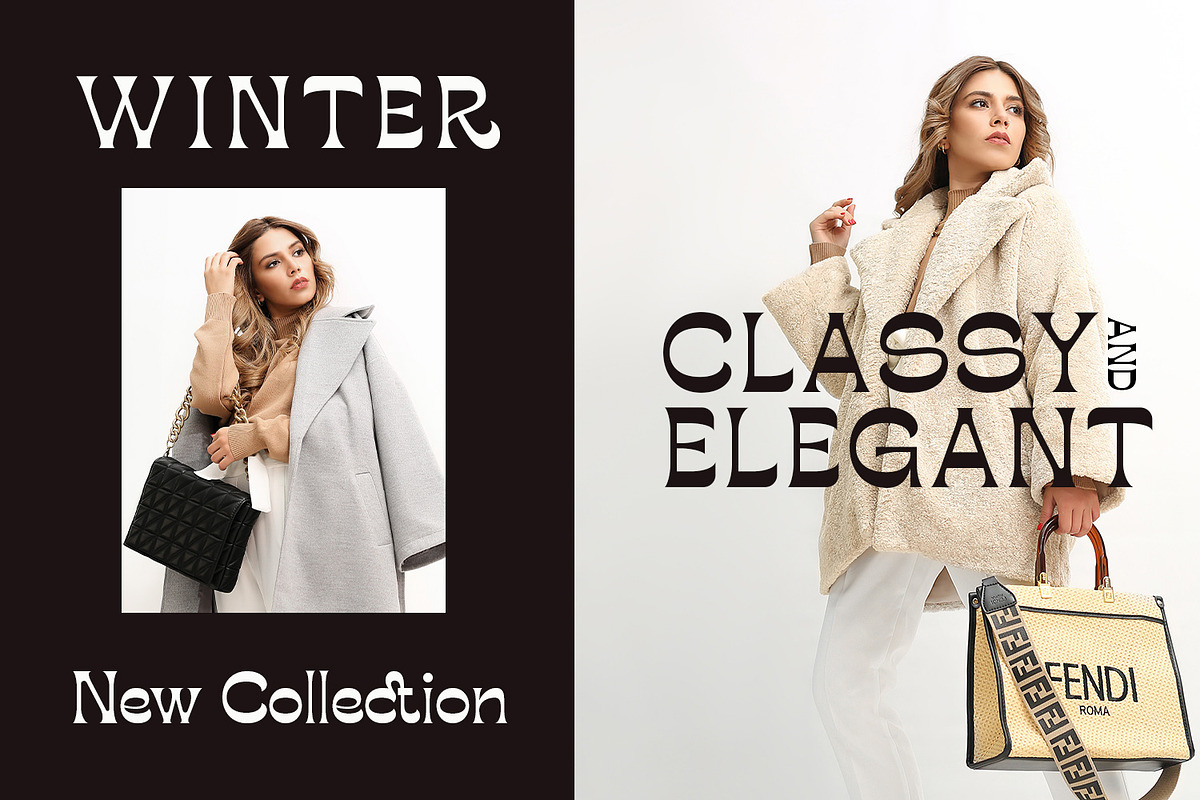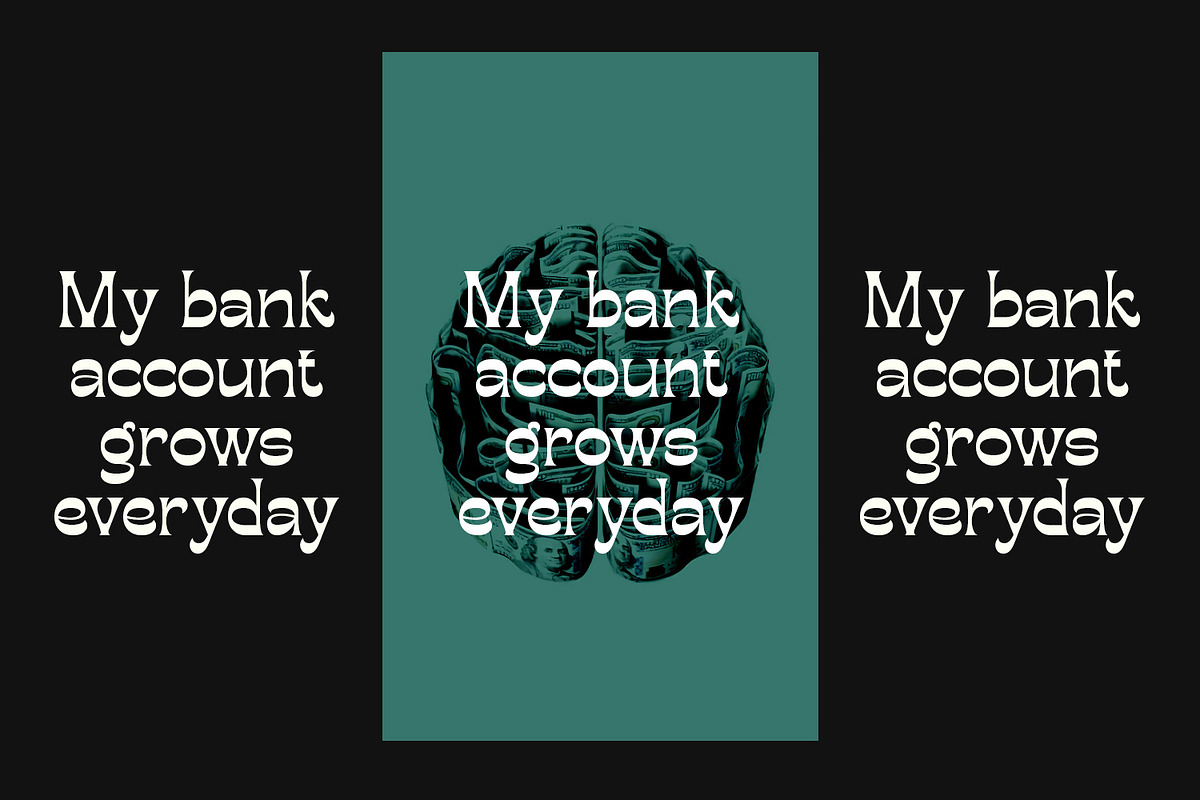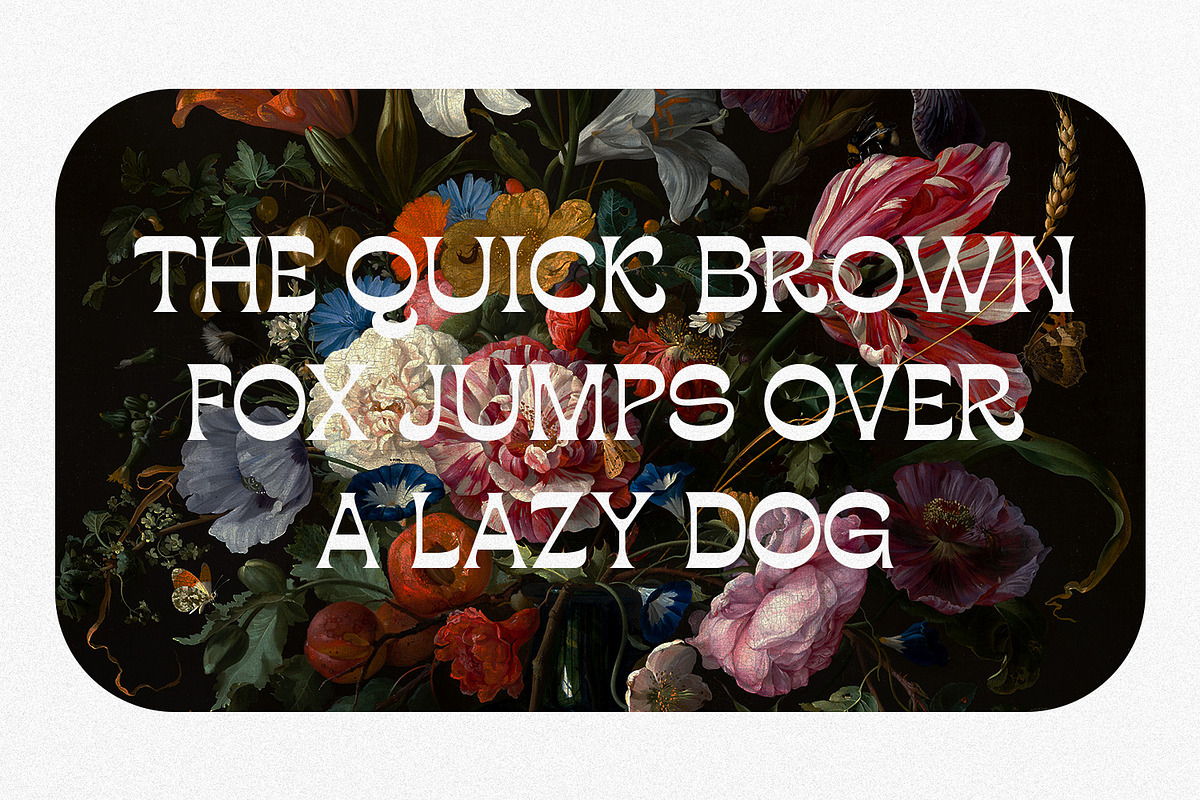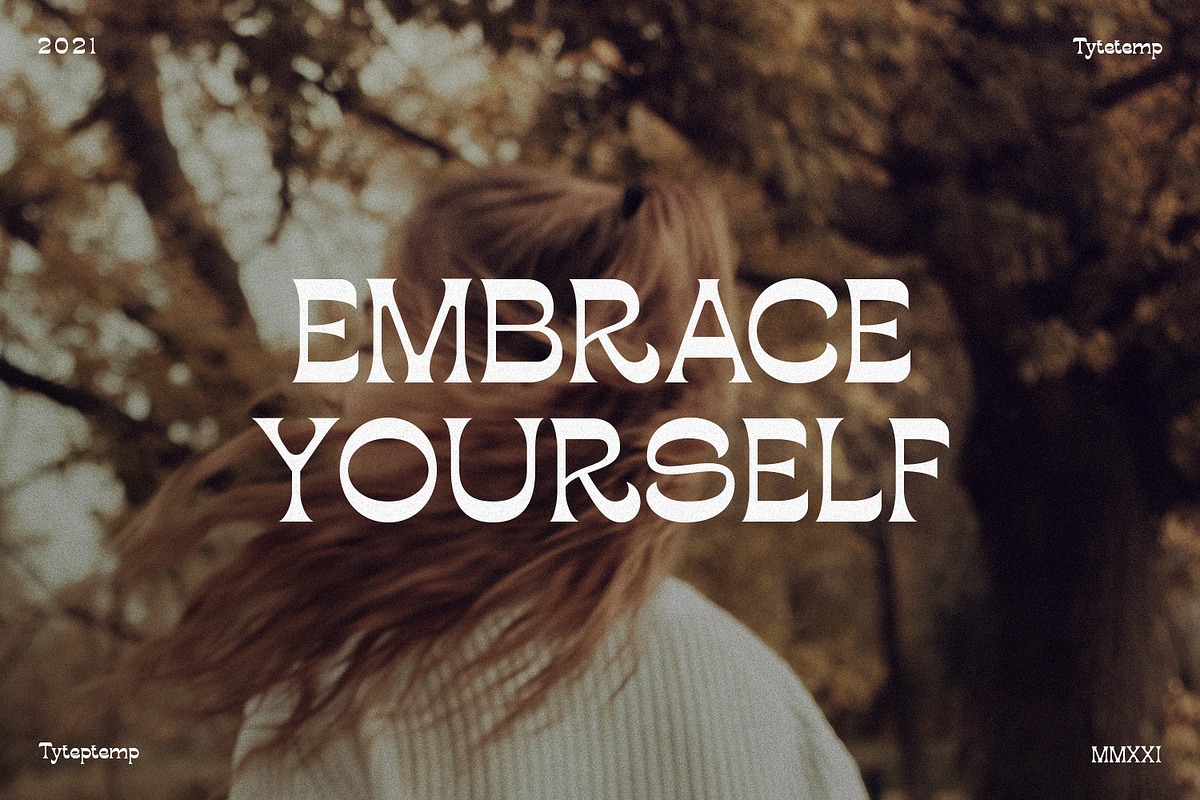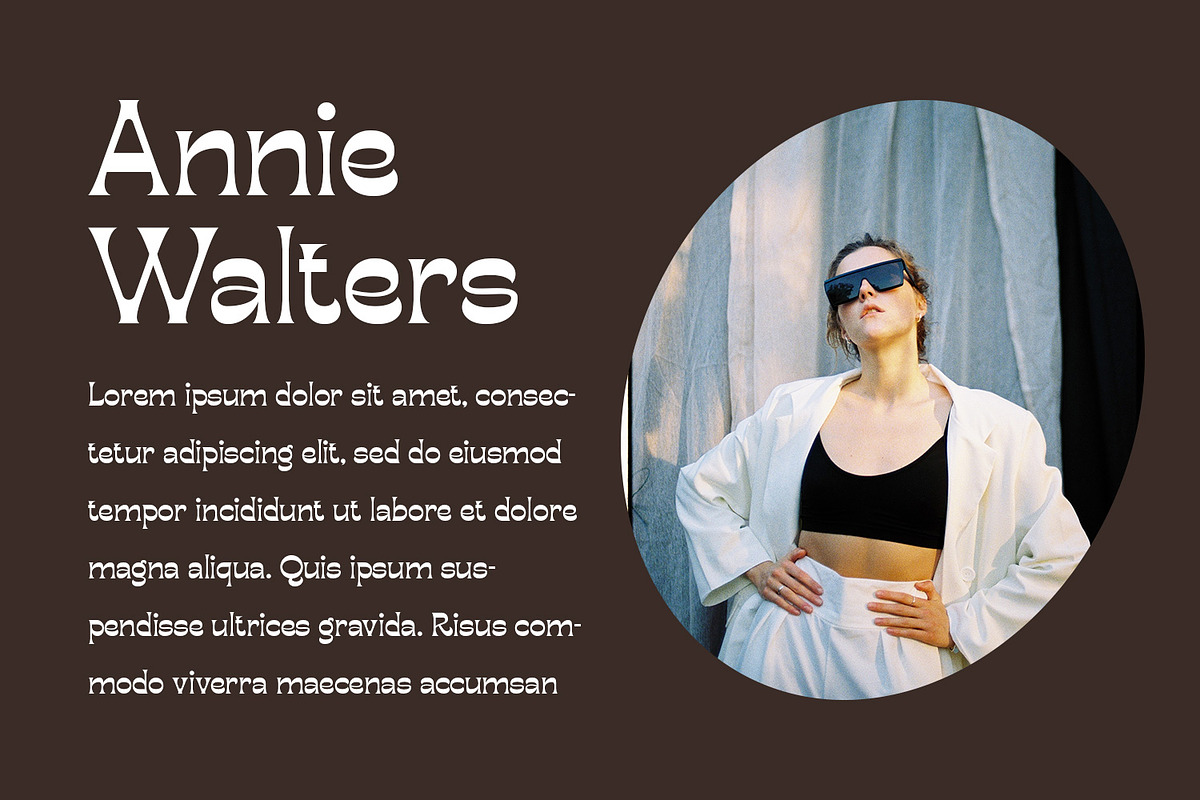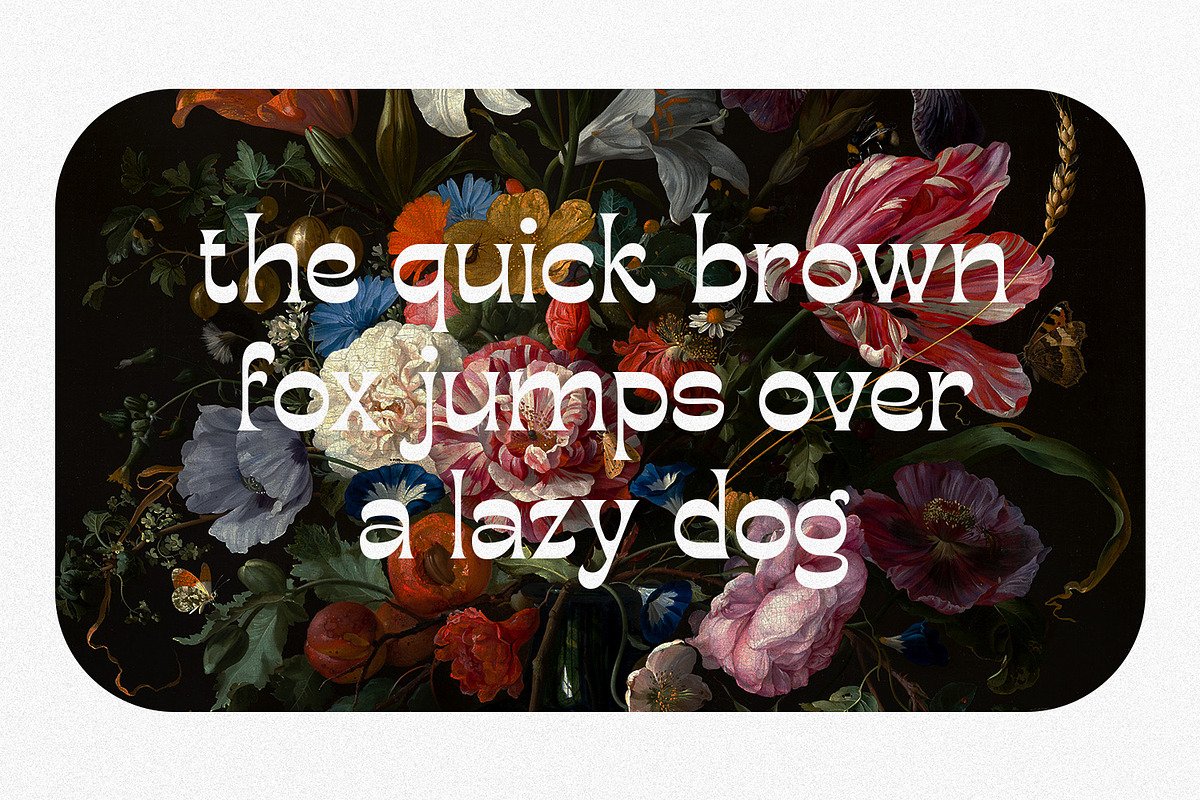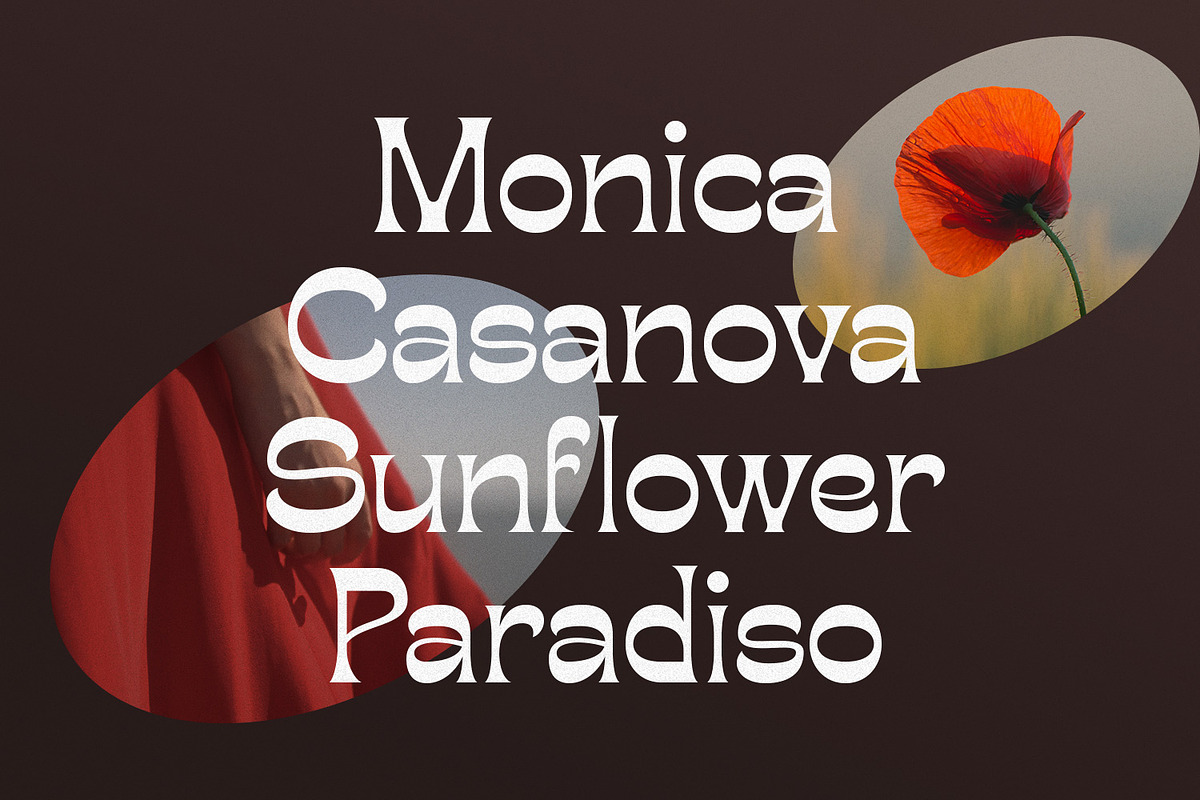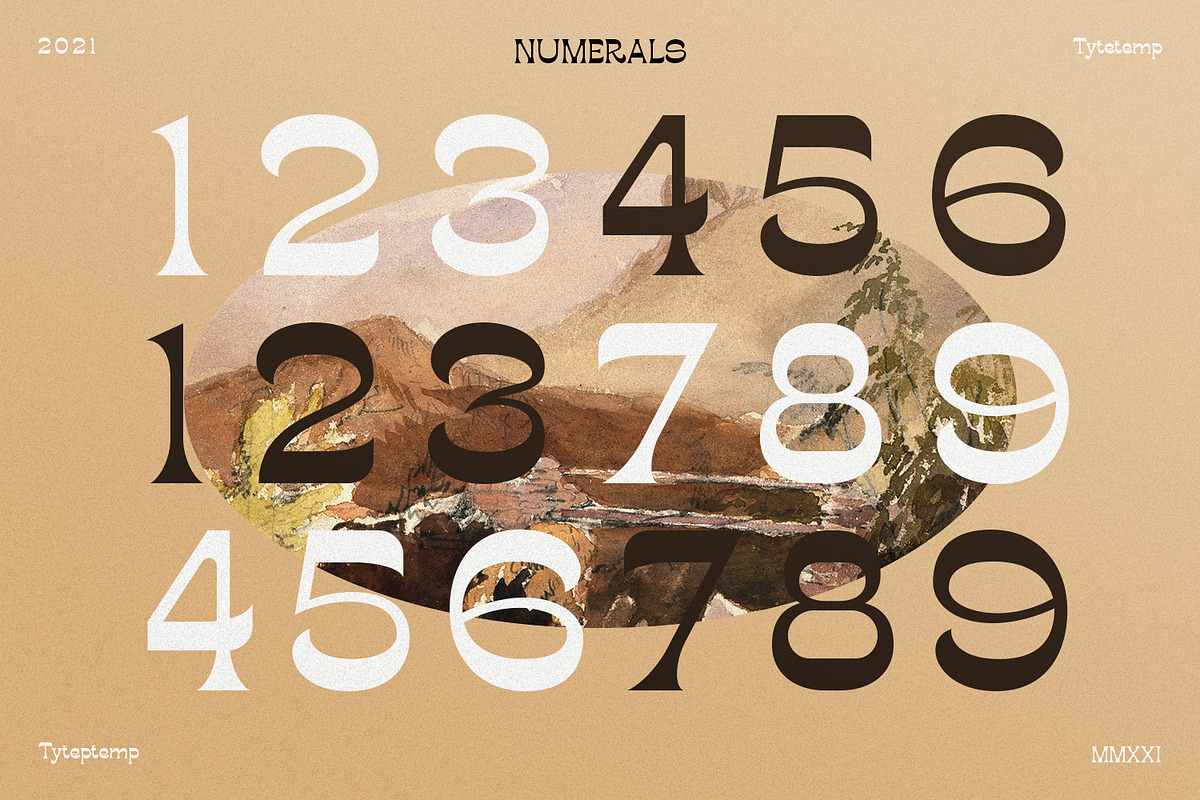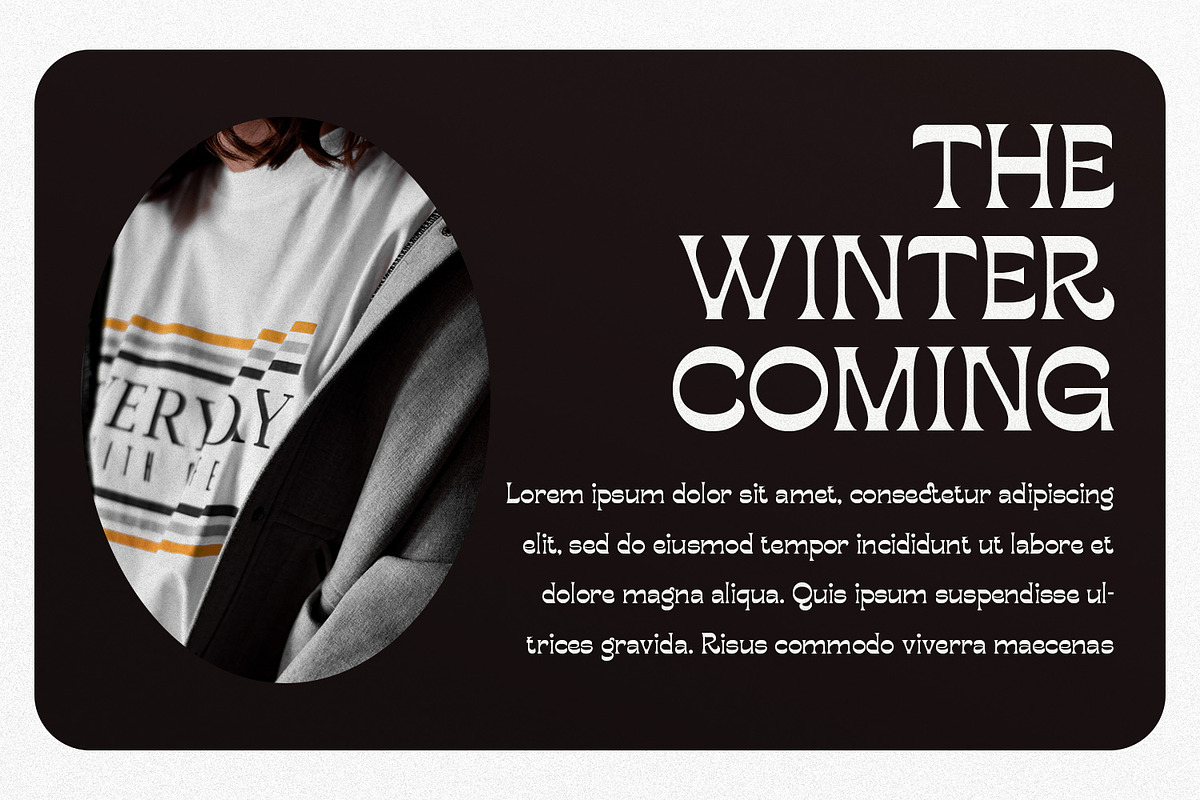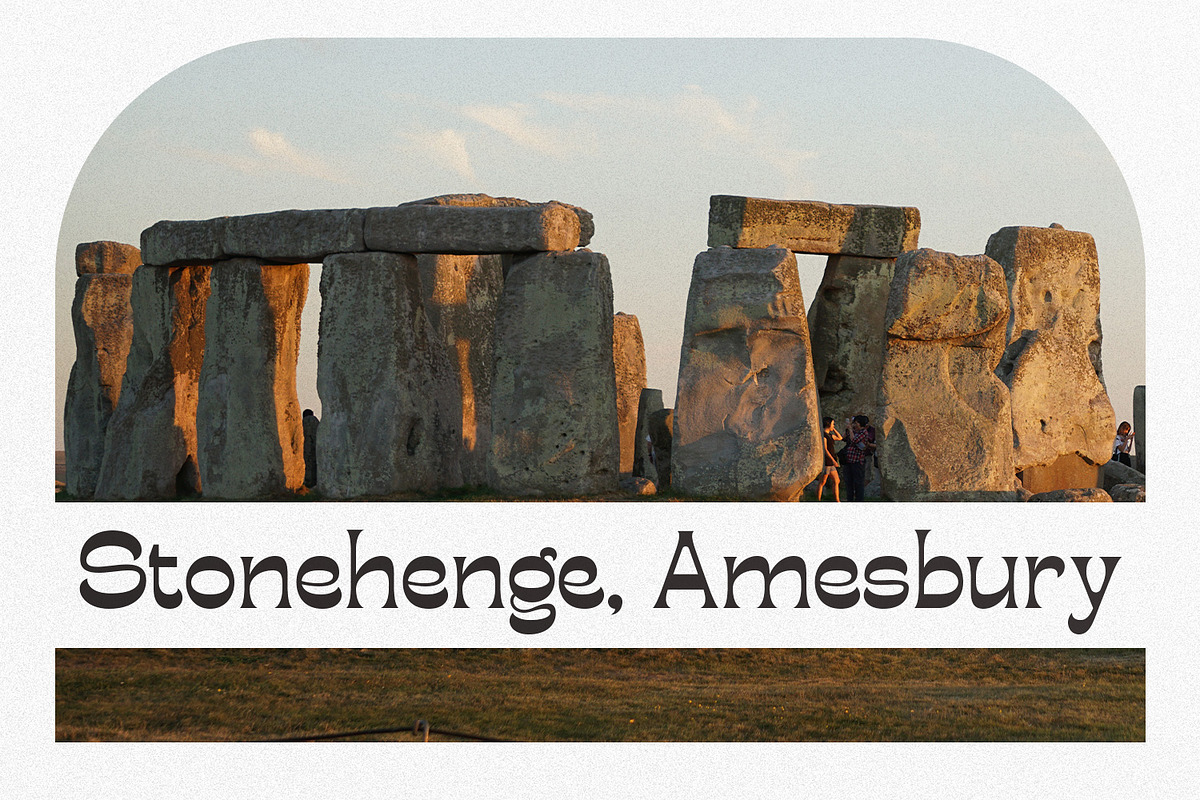
Bougerose a Modern Display Font
Bougerose - a Modern Display Font is a stylish font It has modern look. Comes with alternatives and ligatures, helps to create stunning logos, quotes, posts, blog posts. branding projects, magazine imagery, wedding invitations, and much more.
- Unique Letterforms